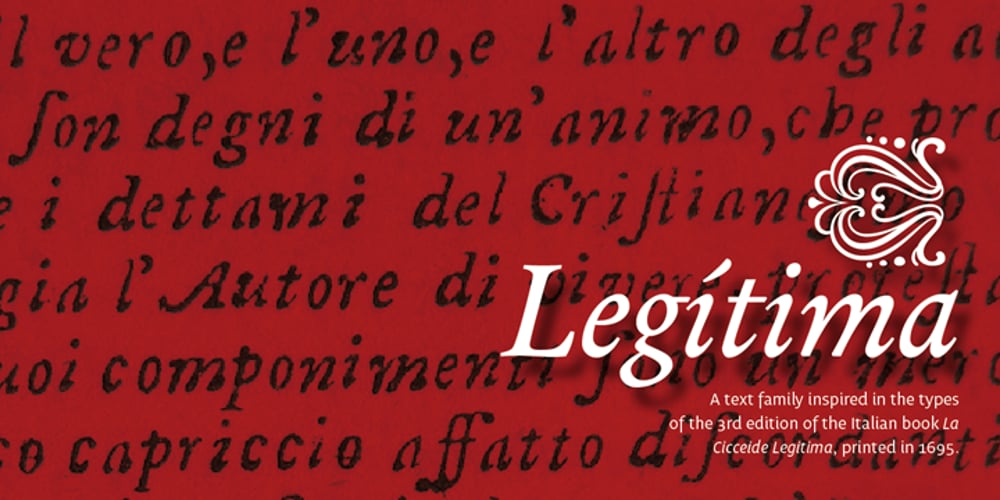
Legitima Font Family was designed by César Puertas and published by César Puertas. Legitima contains 2 styles and family package options. Legitima is a text font family inspired by the types found in the 3rd edition of the Italian book La Cicceide Legitima, printed in 1695. Its weight and x-height, optimized for 10 point-size, make it an ideal choice for book design and anything with running text. Like most typefaces from the 16th century, the strokes that constitute Legitima seem to depart from the traditional broad-nib pen model of handwriting and dare to explore the shapes produced by the techniques in use by punch-cutters of the time.